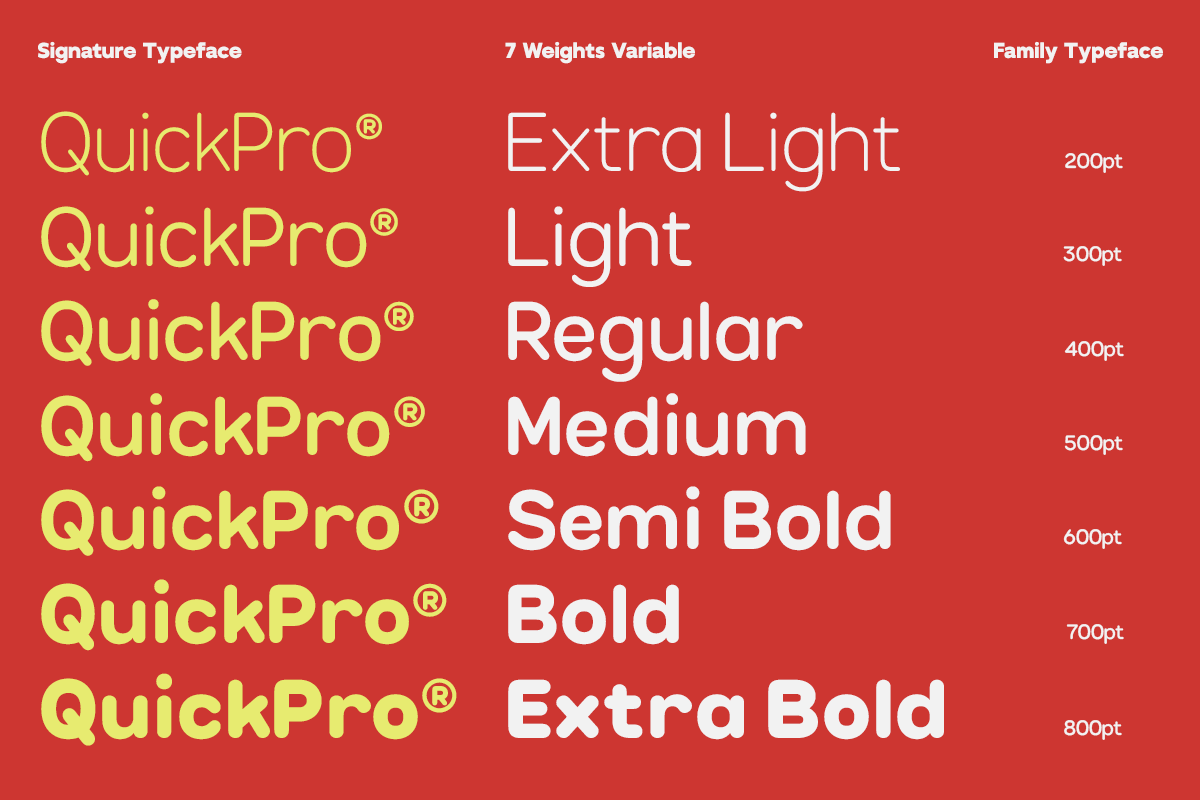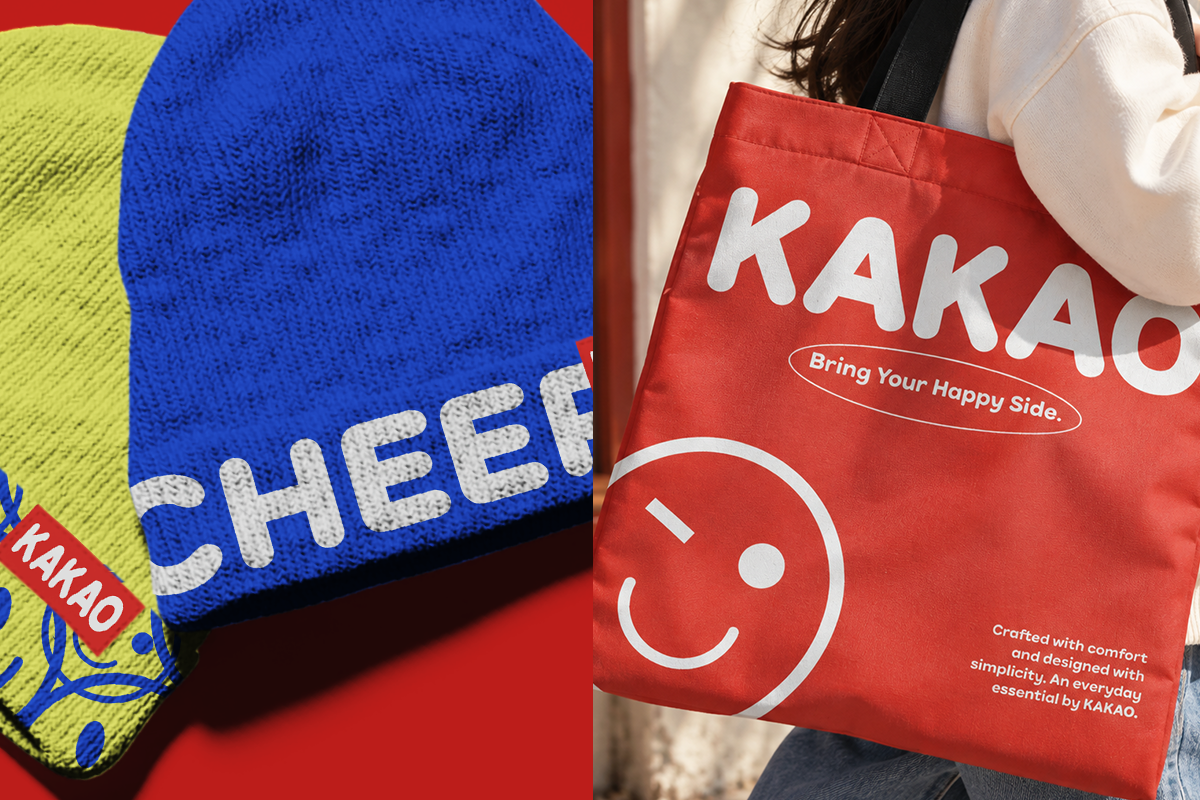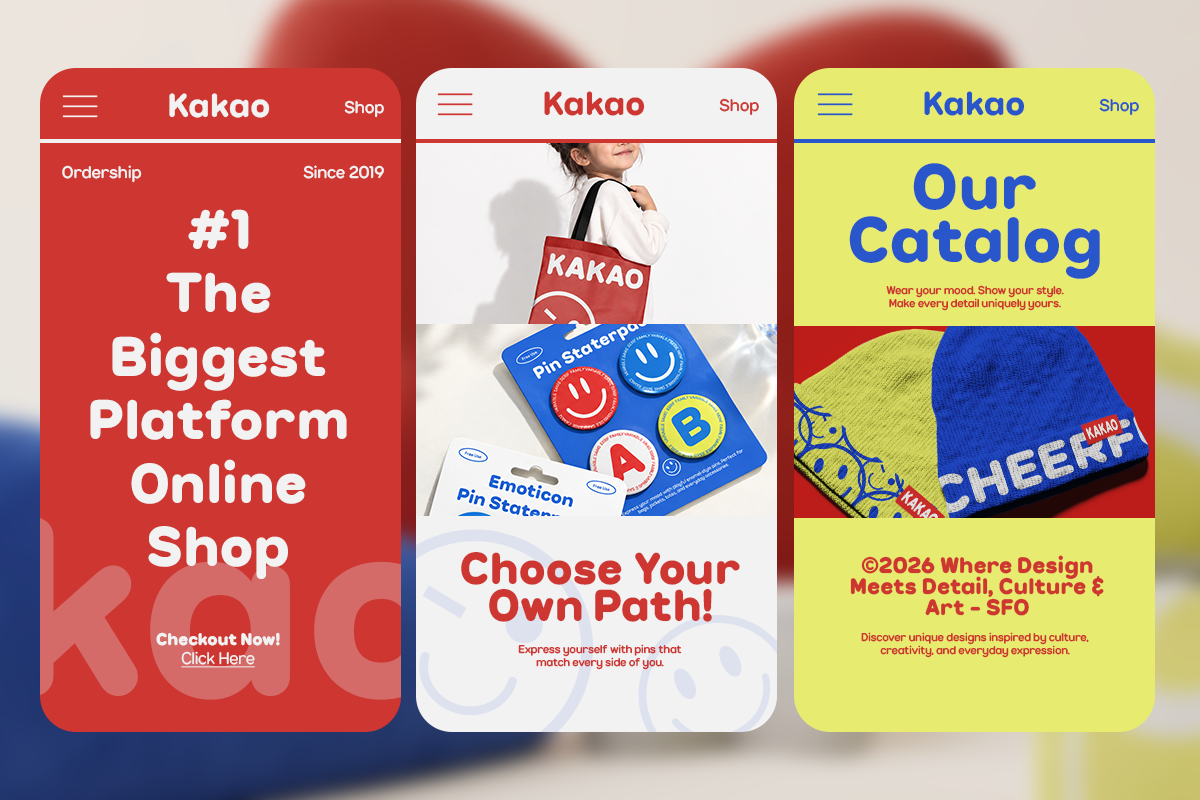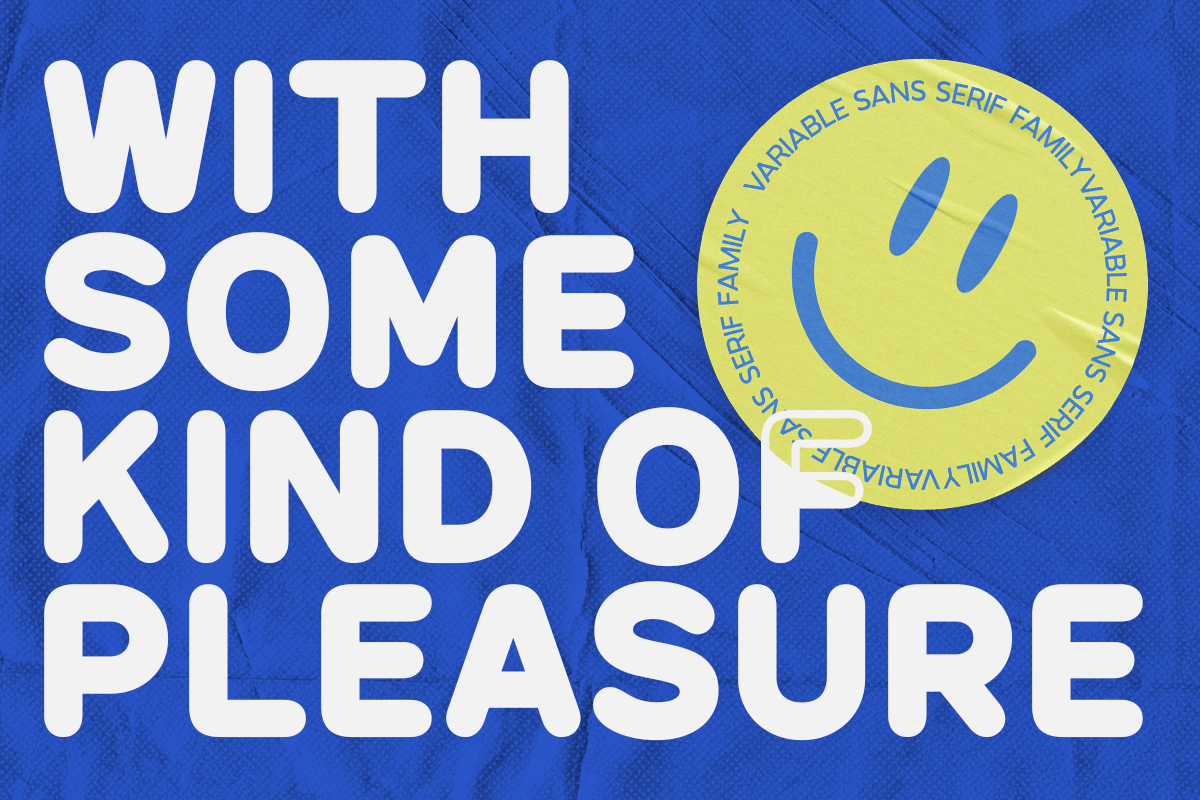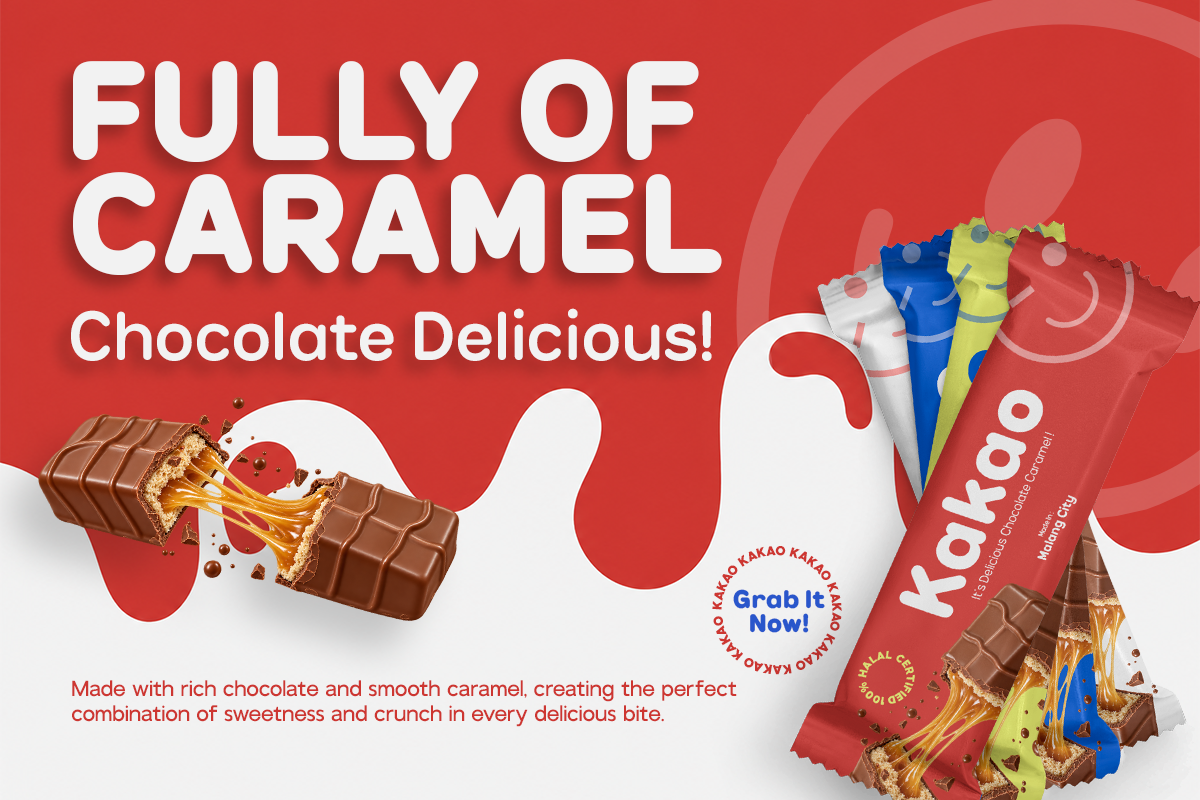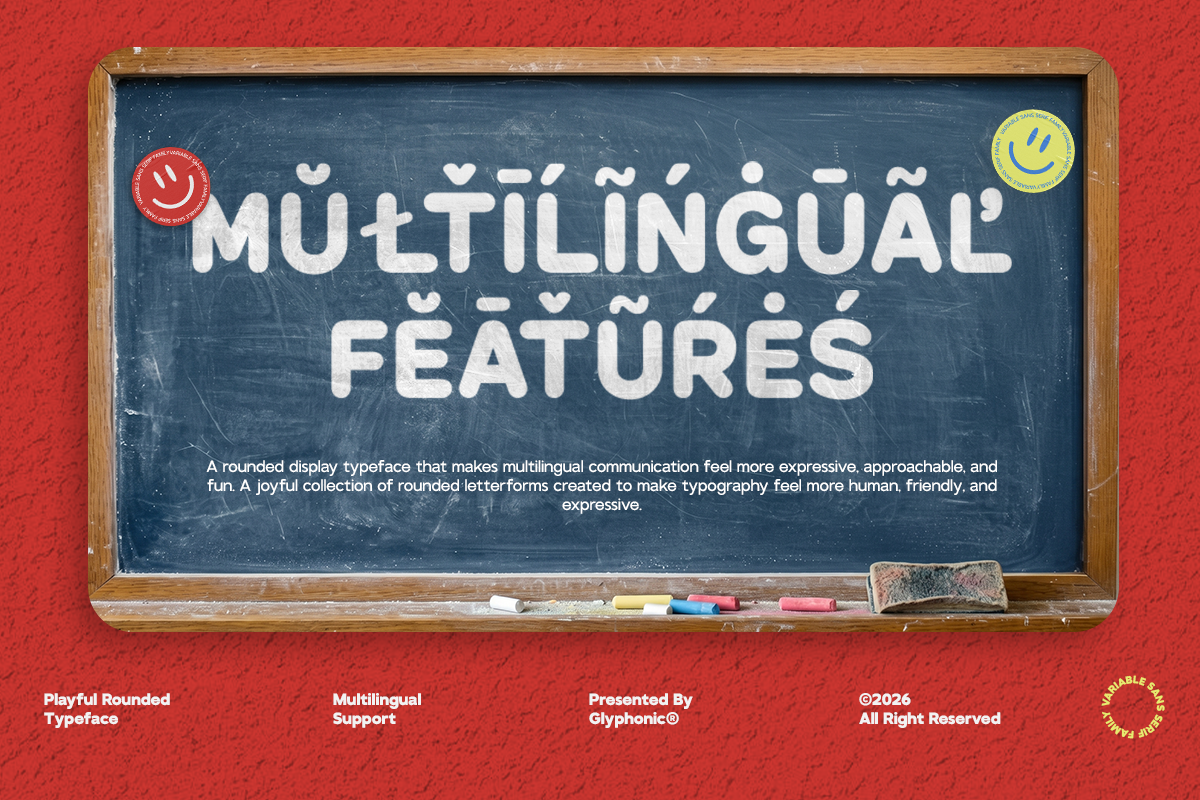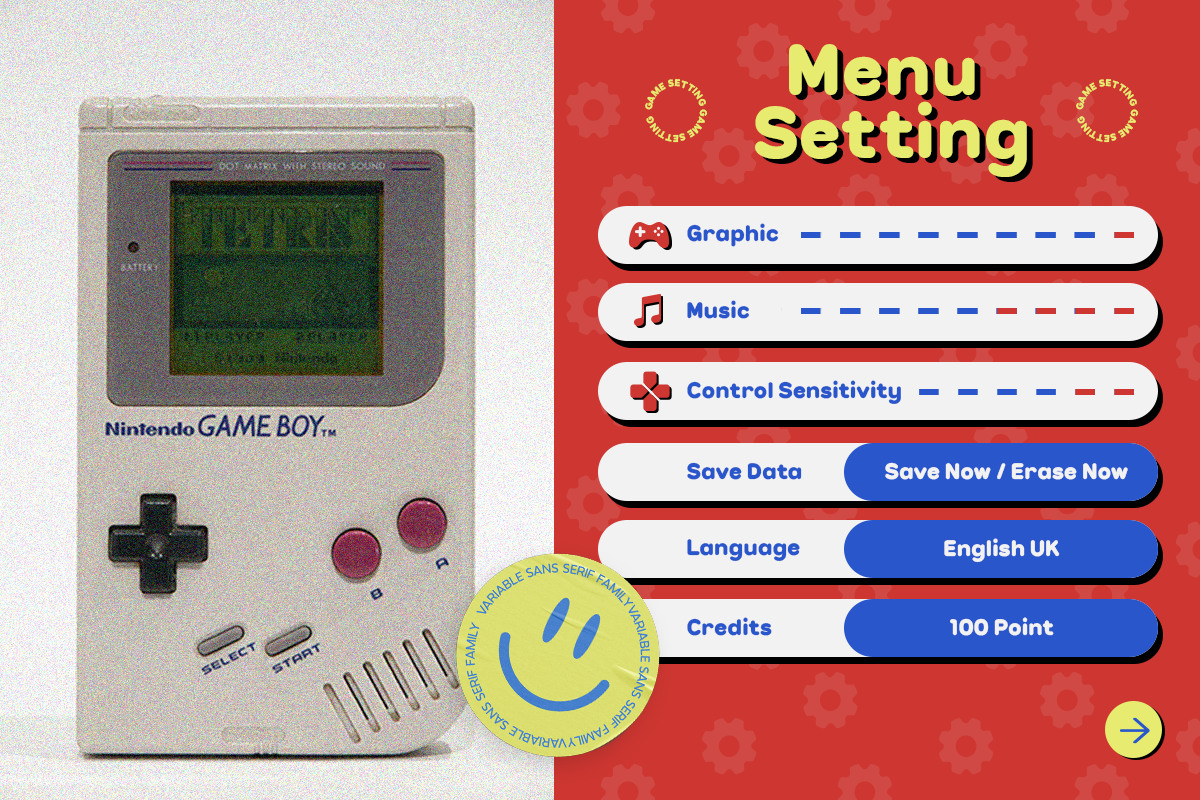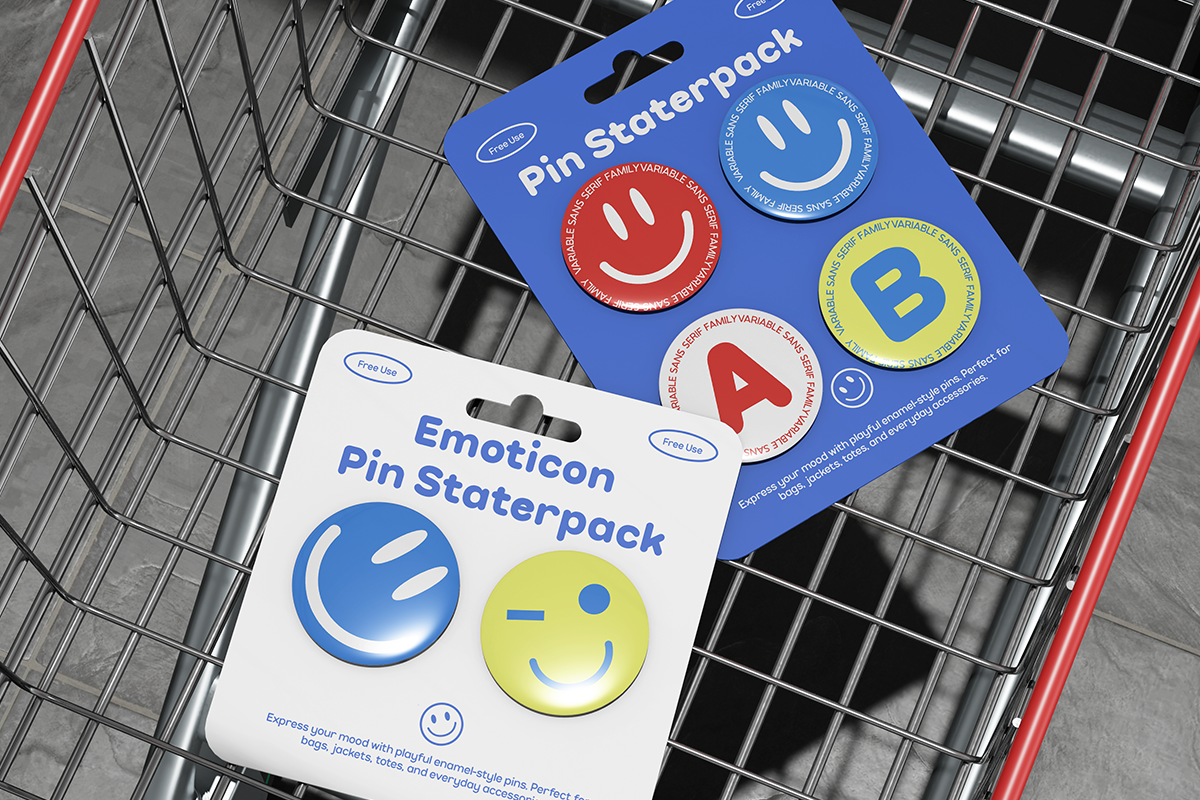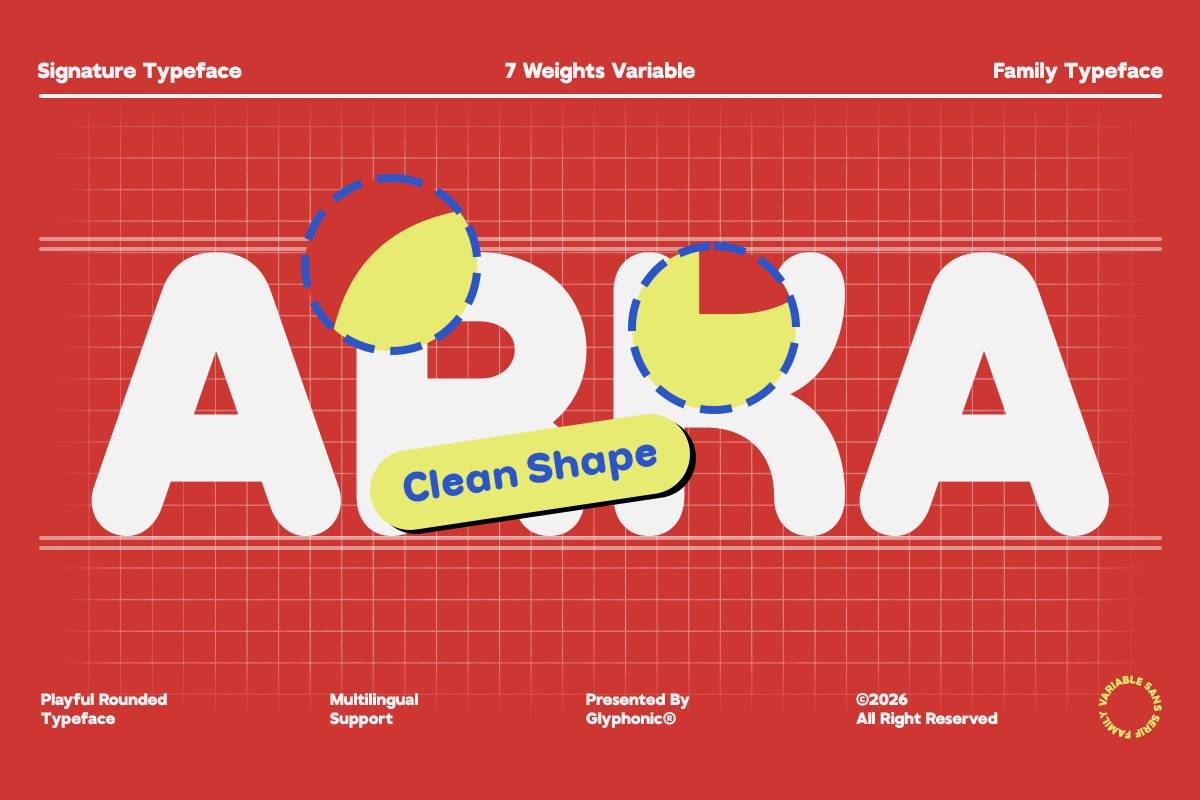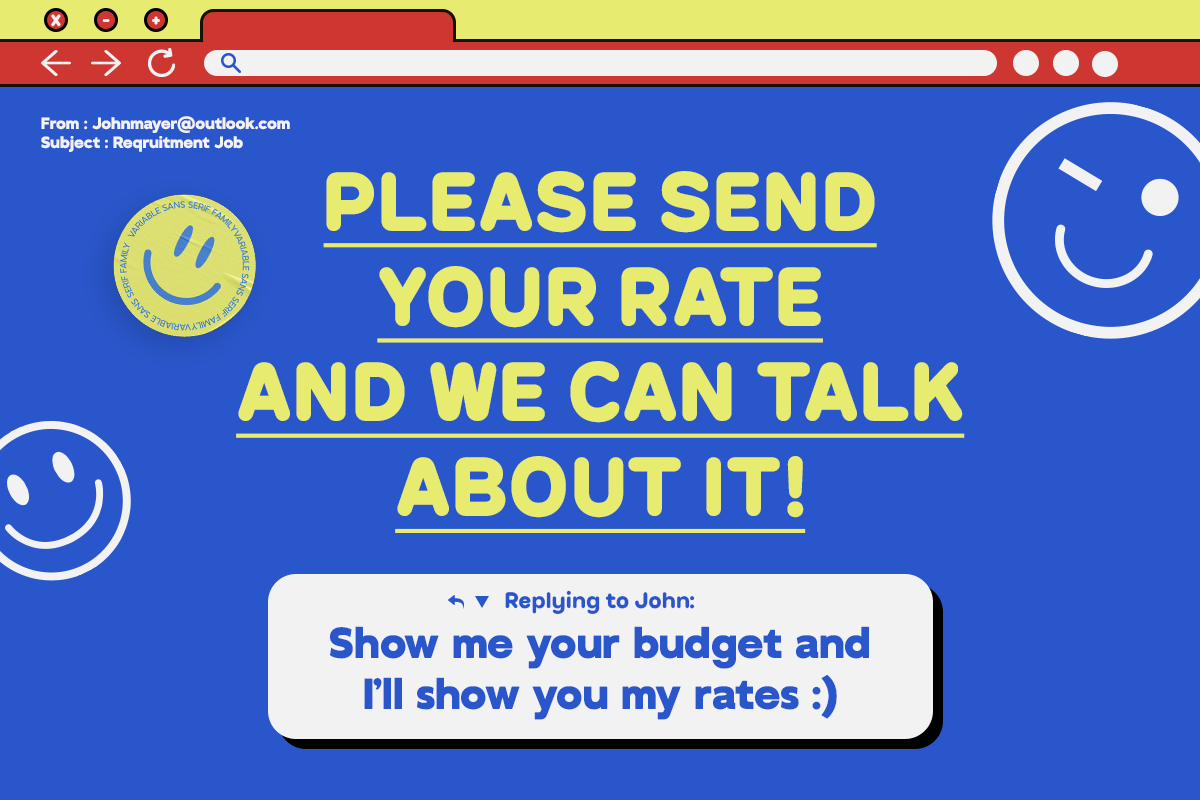
GC Quick Pro - Variable Rounded Sans
GC Quick Pro – Variable Rounded Sans is a modern rounded sans display typeface designed to bring bold personality, smooth geometry, and playful clarity into contemporary typography. Built with soft rounded corners, balanced proportions, and a clean variable structure, GC Quick Pro delivers a friendly yet confident visual identity that feels fresh, energetic, and highly versatile.
Created for expressive branding and modern display design, GC Quick Pro combines geometric sans construction with rounded terminals to create a warm, approachable character without losing clarity. Its variable weight system provides seamless flexibility across headlines, logos, packaging, editorial layouts, UI design, and social media graphics.
Designed to perform beautifully in both digital and print environments, GC Quick Pro offers excellent readability while maintaining a cheerful, modern aesthetic. Whether you're creating playful branding, lifestyle packaging, creative campaigns, or vibrant visual identities, GC Quick Pro adds smooth rhythm, bold presence, and contemporary charm to every composition.
Variable Rounded Sans Typeface
Smooth Geometric Rounded Design
Friendly & Bold Display Character
7 Variable Weight Styles
Rounded Terminals & Balanced Proportions
Perfect for Branding, Packaging & Editorial Design
Ideal for Headlines, Logos, UI & Social Media Graphics
Multilingual Support (170+ Latin-Based Languages)
Bring playful geometry, modern flexibility, and bold rounded personality to your typography with GC Quick Pro.